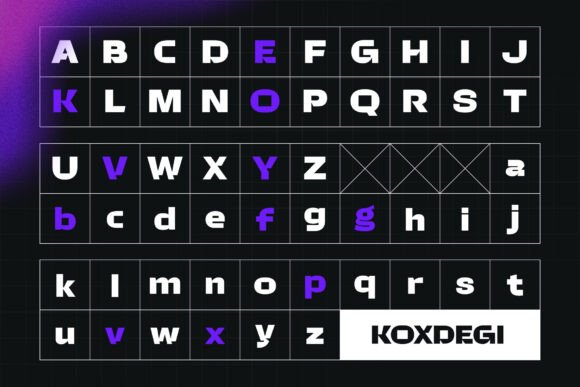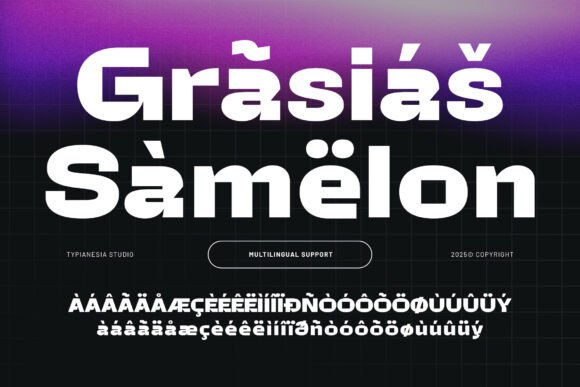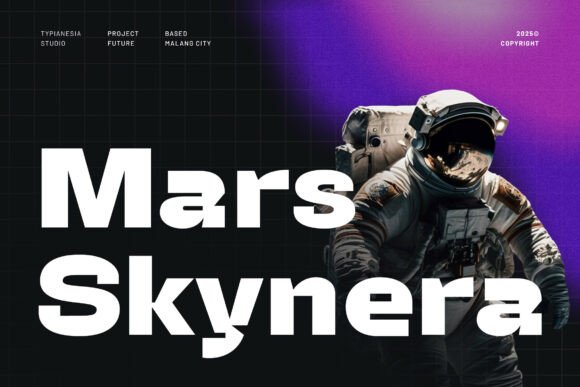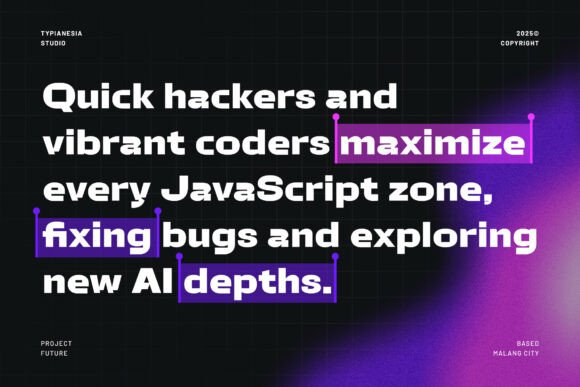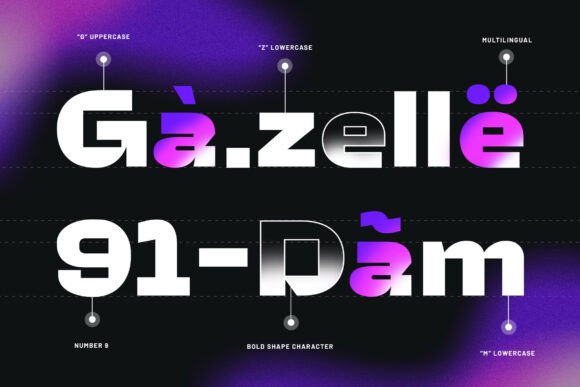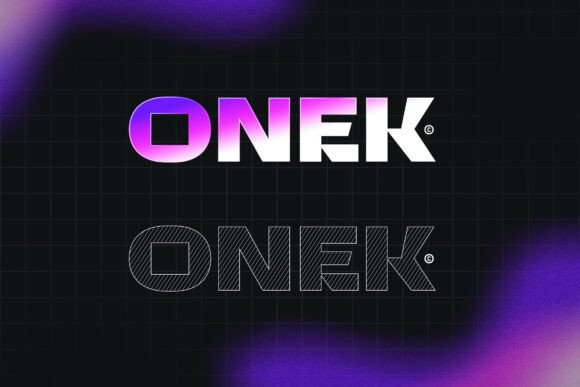
Introduction to Koxdegi Font
Imagine you’re working on a project, and you’re trying to convey the essence of innovation and cutting-edge technology, but you’re struggling to find the perfect font to match your vision. That’s where Koxdegi Font comes in – a game-changing typeface that embodies the futuristic spirit of sci-fi and cyberpunk culture.
As a designer, you’re always on the lookout for high-quality design resources that can elevate your creative project and make it stand out from the crowd. With its clean geometric shapes, sharp letterforms, and powerful sans-serif structure, Koxdegi Font is the perfect addition to your design arsenal. Whether you’re working on a tech branding project, creating a gaming title, or designing a digital interface, this font is sure to bring a touch of modernity and high-impact energy to your work.
Key Features of Koxdegi Font
- Unique and Creative Typography: Koxdegi Font offers a distinctive and creative typography that can elevate any design project.
- High-Quality Design Resource: This font is a high-quality design resource that can be used for a variety of creative projects, including logos, branding, and digital designs.
- Perfect for Creative Projects: Koxdegi Font is ideal for designers who want to add a touch of creativity and uniqueness to their projects, whether it’s a logo, brochure, or website.
Honest Review: Koxdegi Font
I recently stumbled upon the Koxdegi Font while searching for a unique design resource for a creative project. I must say, I was impressed by the quality and versatility of this font.
- ✨ High-quality design that’s perfect for creative projects requiring a modern and sleek look.
- ✨ The font is highly customizable, making it ideal for graphic designers and digital artists.
- ⚠️ The font doesn’t support transparent backgrounds, which might be a concern for designers who work with complex graphics.
- ⚠️ Some users might find the font’s style a bit too minimalist, which may not suit every design project.
Overall, I’m quite impressed with the Koxdegi Font. Its high quality, customization options, and free download make it a valuable resource for designers. While it may have some limitations, it’s definitely worth considering for your next creative project.
The Koxdegi Font is ideal for use in logos, titles, headings, and body text. It is also suitable for use in digital art, graphic design, and creative projects that require a high-quality, elegant font.
While the Koxdegi Font is a high-quality design resource, it’s not designed to be heavily customized. However, you can experiment with different font sizes, colors, and styles to create unique variations that suit your project’s needs. Keep in mind that excessive customization may affect the font’s overall quality and legibility.